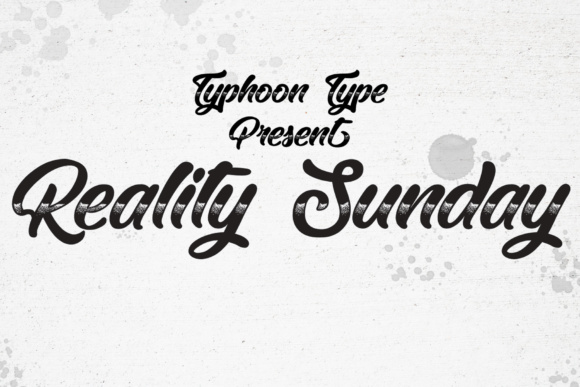
Reality Sunday Font
About Reality Sunday Font
Reality Sunday is a stunning handcrafted font; this font has an intriguing texture that replicates chrome, giving it an appealing retro vibe for both print and web.